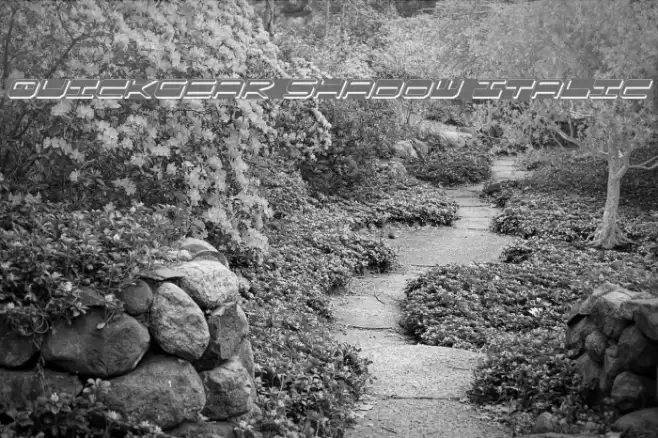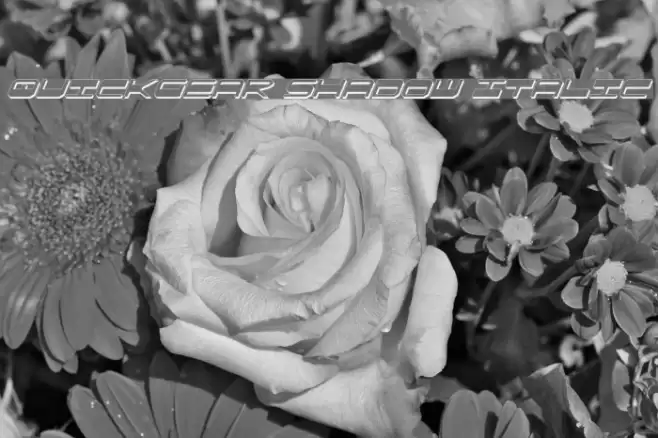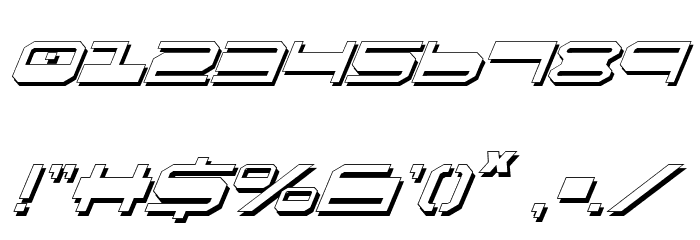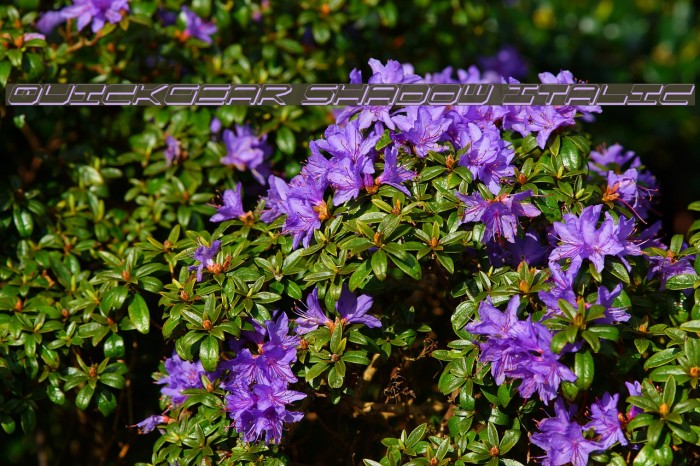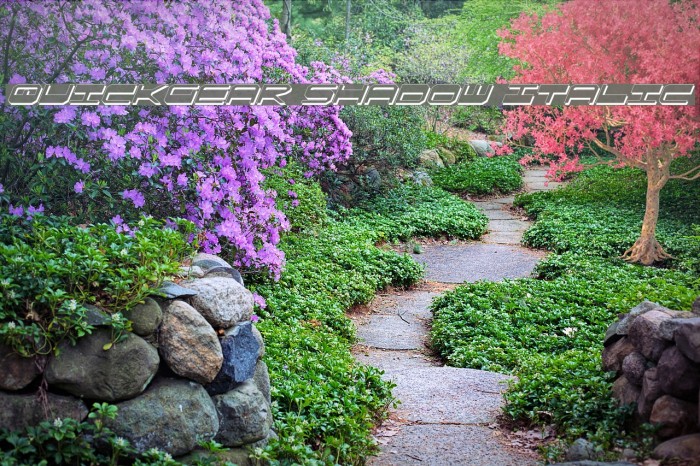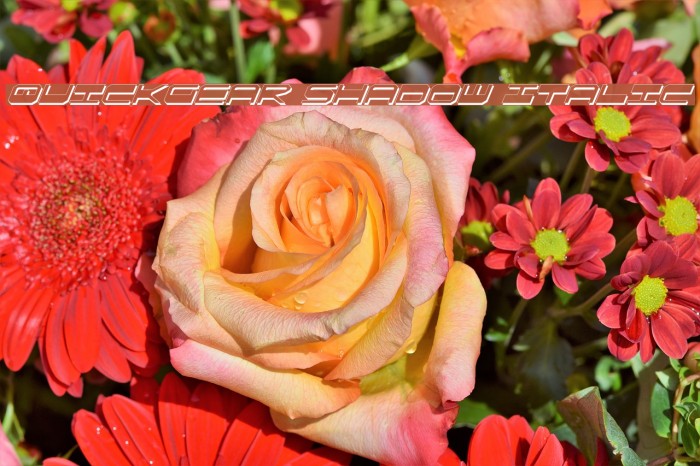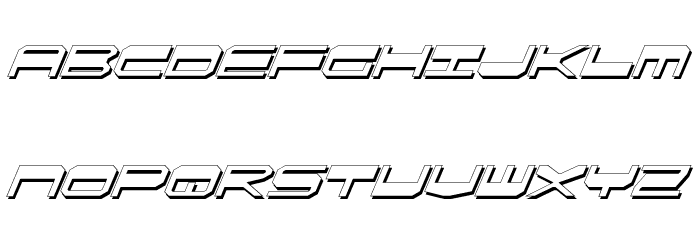
QuickGear Shadow Italic Font
QuickGear Shadow Italic Description
This font features a dynamic and futuristic design with a shadow effect that gives it a three-dimensional appearance. The italicized style adds a sense of motion and speed, making it ideal for projects that require a modern and energetic look. The characters are outlined with a bold shadow, enhancing their visibility and impact. The uppercase and lowercase letters maintain a consistent style, with angular and geometric shapes that contribute to its tech-inspired aesthetic. The numbers and special characters follow the same design principles, ensuring uniformity across all elements.
A futuristic, italicized font with a bold shadow effect, perfect for dynamic designs from Images & Symbols fonts.
- Proposed Projects: Ideal for technology branding, video game titles, sci-fi posters, and sports event promotions.